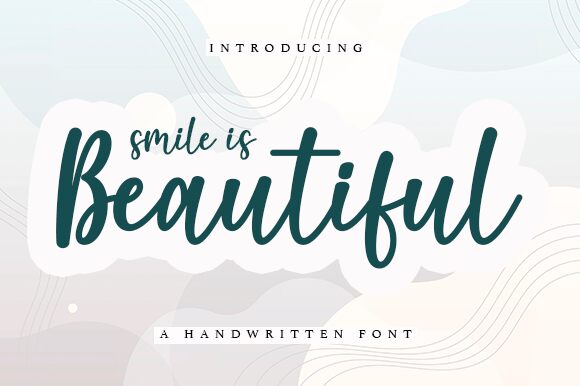
Smile Is Beautiful
Smile Is Beautiful, crafted by Wahyu Studio, is a semi-light handwritten font that exudes charm and personality. With its elegant curves and flowing lines, this font captures the essence of personal touch and warmth. Its aesthetic appeal lies in the delicate balance between sophistication and informality, making it a versatile choice for a variety of creative projects.
Whether you're designing heartfelt invitations, branding materials with a humanistic feel, or adding an intimate touch to editorial content, Smile Is Beautiful is perfectly suited to elevate your design with its engaging style and approachable elegance.